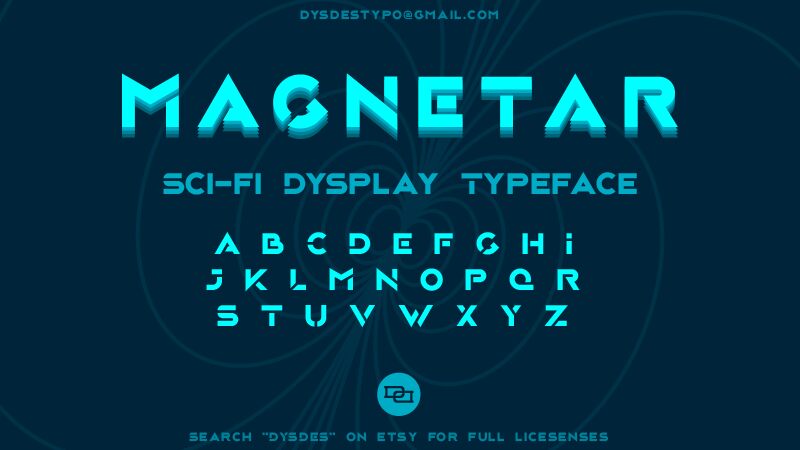
Magnetar font
Magnetar
Discover a captivating sci-fi-inspired font designed to elevate your creative projects. This unique typeface includes alternates for all capital letters, giving you versatility and style for any design. Perfect for your next graphic design, branding project, or digital artwork, this font will make your text stand out.